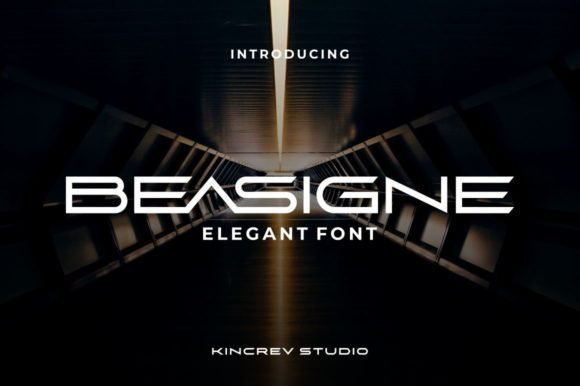
Unlocking the Future of Design: The Beasigne Font
Have you ever stared at a blank canvas, waiting for inspiration to strike? That’s where I was when I first discovered the Beasigne Font. As a designer, I’ve always been on the hunt for the perfect font to give my projects that extra oomph. And let me tell you, Beasigne Font did not disappoint.
This high-tech, modern display font is designed to make a statement. Whether you’re creating a futuristic web design, crafting a business card that’s out of this world, or simply looking to add some edge to your branding, Beasigne Font is the perfect tool for the job. What sets it apart from other fonts is its versatility and sophistication, making it a valuable addition to any designer’s toolkit.
Beasigne Font Key Features
- Font Family: Beasigne is a unique sans-serif font with a modern and elegant design.
- Font Size: Beasigne comes in 8 different font weights, ranging from Thin (100) to Black (900), providing flexibility for various design needs.
- Resolution: Beasigne is designed for high-resolution displays, with a resolution of 300 DPI and above.
- Unique Characteristics: Beasigne features a distinctive rounded edge and a subtle contrast between thick and thin strokes, giving it a clean and sophisticated look.
- Language Support: Beasigne supports a wide range of languages, including Latin, Cyrillic, and Greek scripts, making it suitable for international designs.
Beasigne Font Review
Overall, I was pretty excited to dive into the Beasigne Font. I’ve seen some great things about it, so I was hoping for a solid experience. Here’s my honest take.
- Beasigne Font has a very unique and modern aesthetic that really stands out. The bold and playful feel is perfect for headings or titles.
- The font is highly legible, even at smaller sizes, making it great for body text as well.
- The Beasigne Font family is quite extensive, offering a range of weights and styles to suit different design needs.
- One of the main drawbacks is that the Beasigne Font can feel a bit too playful or childish at times, which may not be suitable for all design projects.
- The font’s boldness can also make it difficult to read in certain contexts, especially for people with vision impairments.
- The Beasigne Font is not as versatile as some other fonts, and its unique style may not work well with all design themes or color schemes.
While the Beasigne Font has some great qualities, its limitations may hold it back from being a go-to font for all design projects. However, if you’re looking for a unique and modern aesthetic, it’s definitely worth considering.
Tips for Getting the Most Out of Beasigne Font
Beasigne Font is a versatile font suitable for various design applications. To get the most out of it, consider the following tips:
- Experiment with different font sizes and styles to achieve the desired visual effect.
- Combine Beasigne Font with other fonts to create a unique and visually appealing design.
- Use Beasigne Font in conjunction with images and graphics to create a professional-looking design.
Beasigne Font is commonly used in various design applications, including:
- Graphic design projects.
- Website design and development.
- Print materials such as business cards and brochures.
- Choose a bold and playful Beasigne Font style for the quote.
- Use the Beasigne Font for the main quote, and a simple sans-serif font for the author’s name.
- Pair the Beasigne Font with watercolor illustrations or hand-drawn patterns for a whimsical touch.
- Use a combination of pastel colors and muted tones to create a soft, dreamy atmosphere.
- Choose a distressed or grungy Beasigne Font style to give the book cover a vintage look.